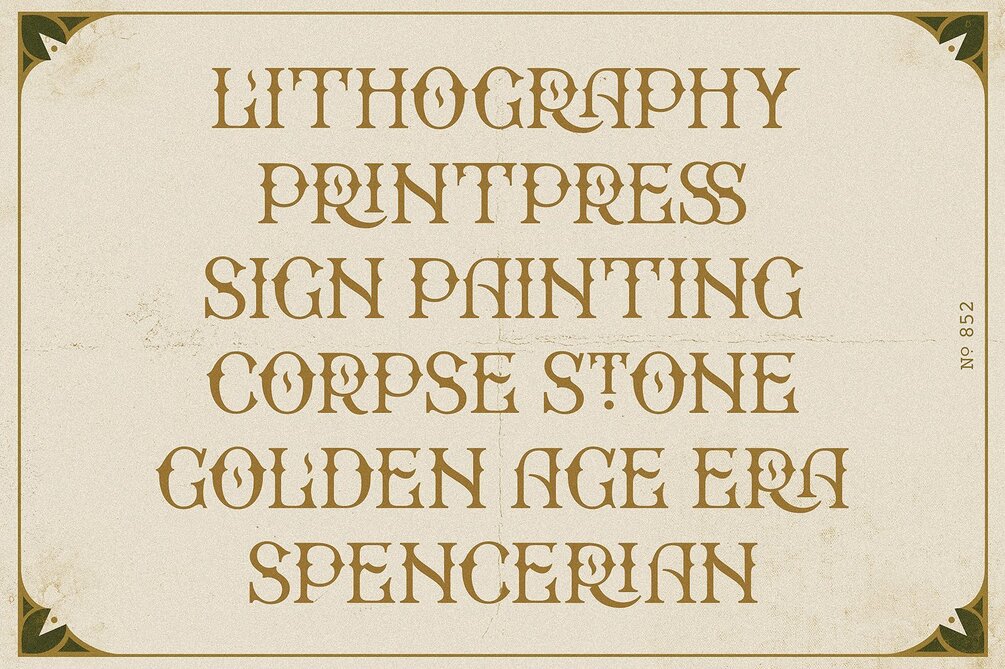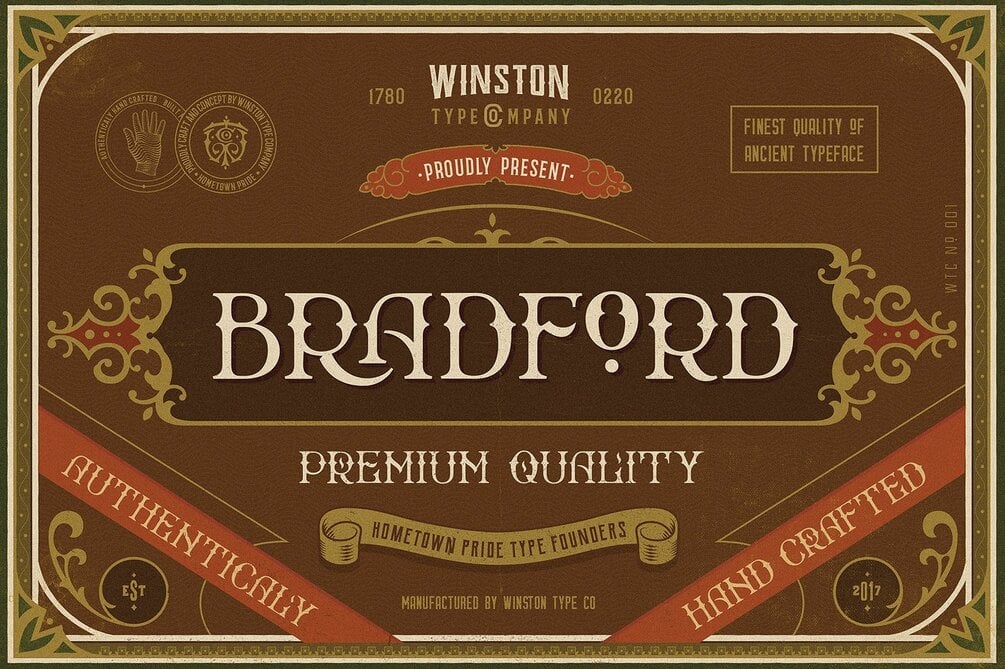
WT Bradford
WT Bradford is inspired by the old-fashioned display, traditional sign-writing and some ancient packaging in early 1900 that used primarily to create the ephemera of everyday life, the ubiquitous letter-heads, trade cards, advertising circulars and bills that serve an immediate purpose.
WT Bradford comes in two versions :
1. WT Bradford - Standard version.
2. WT Bradford - Premium version.
• Full character set A-Z in capital letters
• Special Ligatures
• Catchwords
• Numerals & Punctuation
• 3 font styles (Regular, Press and inline)